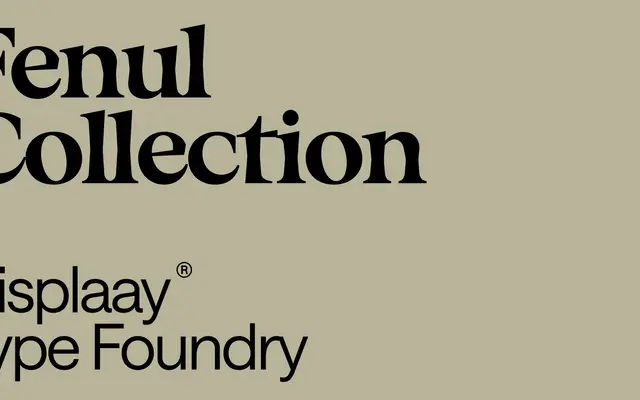
A three-family sans collection spanning compressed through standard widths, with proportional, semi-mono and mono variants across 48 styles and a three-axis variable font.
Fenul is a large-scale type system from Displaay offering 24 weights across 48 styles in three width families: Compressed, Condensed and Standard. Each family runs from Thin to Heavy with matching italics, and the system accommodates two x-height options alongside proportional, semi-mono and mono spacing variants. A variable font with weight, slant and width axes covers the full range in a single file, making the collection practical for complex editorial and interface work.
Fenul presents as a geometric sans with a structured, modular character visible across its compressed and condensed widths. The proportional, semi-mono and mono variants suggest a system designed for technical and editorial versatility.